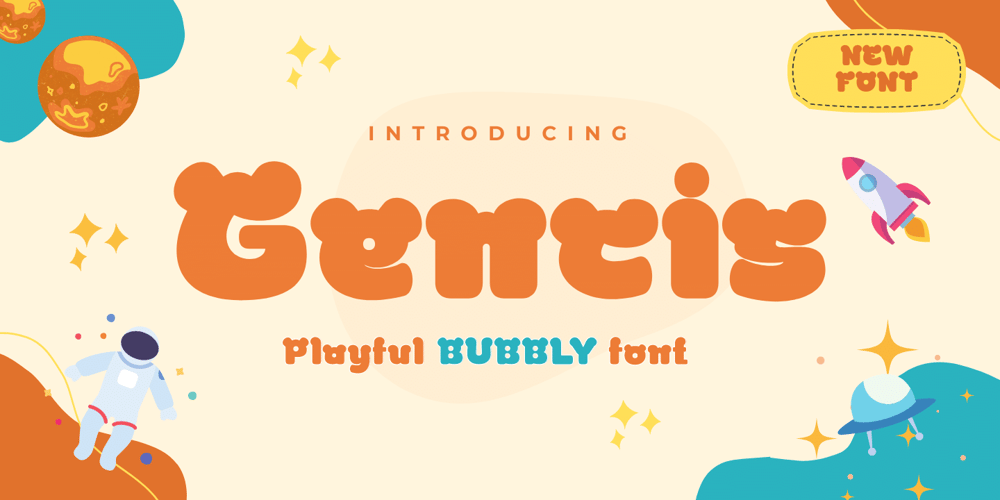
Gencis Font Family was designed by Rozikan and published by Twinletter. Gencis contains 1 styles and family package options. introduce Gencis unique display font. You can use this font that has a funny, cute, attractive, and playful shape for various things in your special project. It can be used as the title of your news article, or it can be used in your search button. Or you can even use it as a subtitle in various visual media to promote your company.of course, your various design projects will be perfect and extraordinary if you use this font because this font is equipped with a font family, both for titles and subtitles and sentence text, start using our fonts for your extraordinary projects.